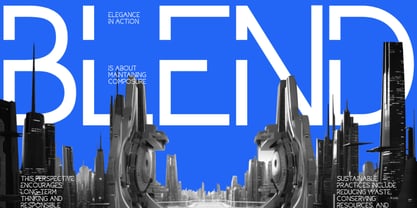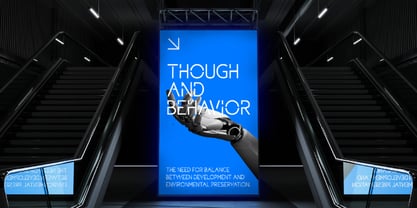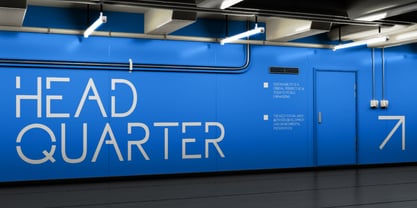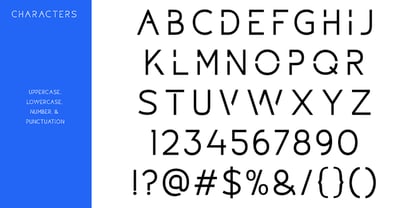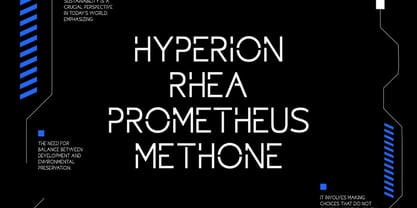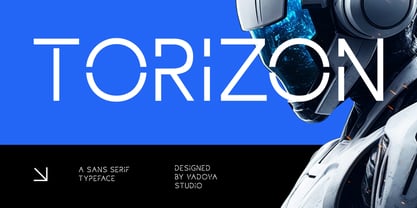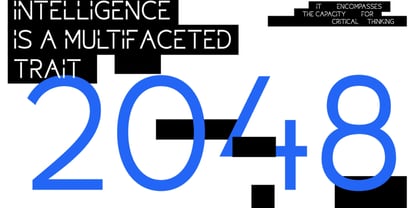
Torizon
Torizon is a sleek, modern sans serif typeface inspired by futuristic aesthetics and minimalist design. Its clean geometric lines are accented with subtle stencil‑like breaks that create visual interest while maintaining excellent readability. The font includes uppercase, lowercase, numerals, punctuation, and basic symbols, making it versatile for a wide range of creative applications. Torizon’s design balances precision with style, making it ideal for sci‑fi visuals, tech branding, digital interfaces, posters, and editorial layouts. Torizon is ideal for designers and creatives who want to convey a forward‑thinking, modern aesthetic. Its futuristic letterforms work exceptionally well in technology, gaming, and innovation contexts — from tech startup branding and app UI to sci‑fi posters, website headers, and editorial layouts. Its minimalist yet distinctive style makes it equally effective in bold headlines and clean visual compositions across print and digital formats.